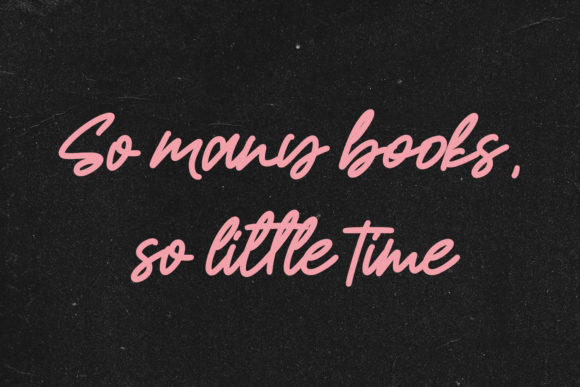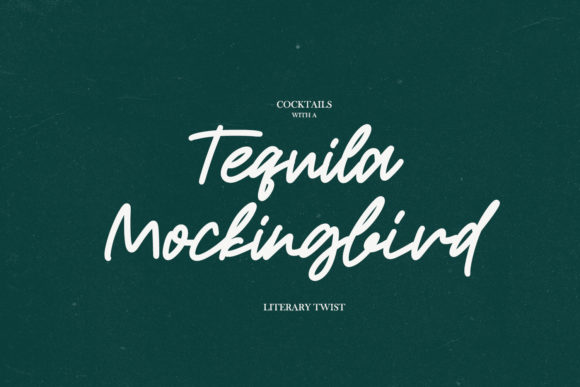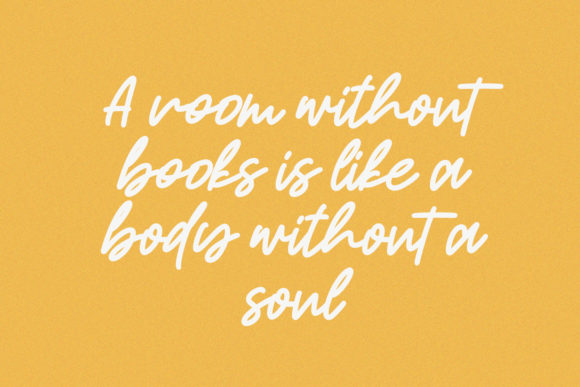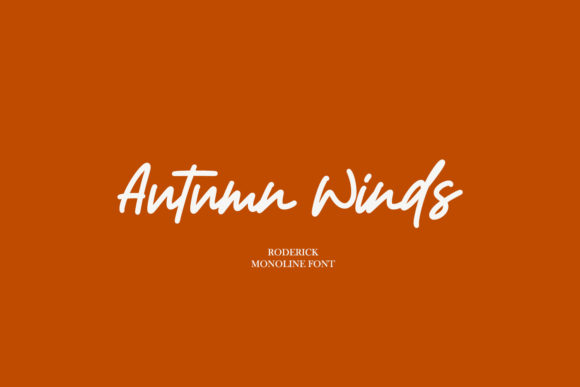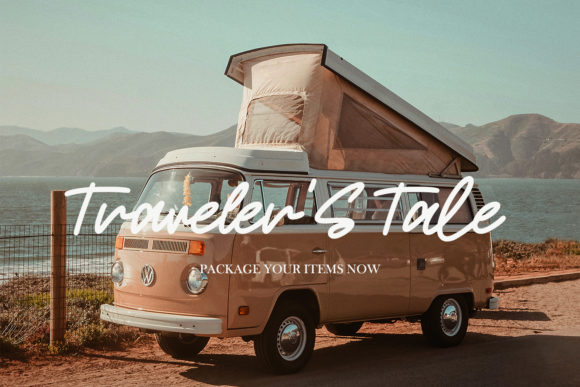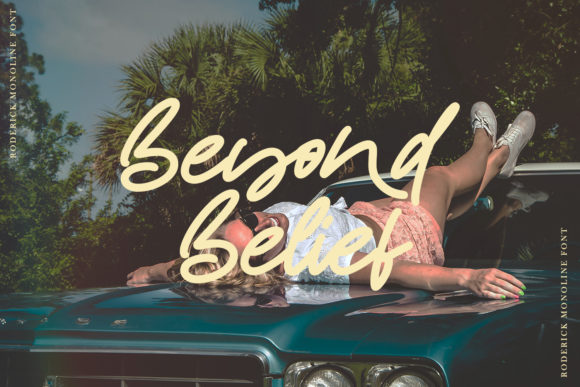
Introduction to Roderick Font
As a designer, have you ever had that moment when you’re working on a project and you can’t quite find the perfect font to bring your creative vision to life? The words are flowing, the colors are popping, but something’s missing – that special something that sets your project apart from the rest. For me, that moment came when I stumbled upon the enchanting Roderick Font.
With its unique blend of classic typography and modern flair, Roderick Font is the perfect design resource for any creative project. Whether you’re working on a logo, a brochure, or a website, this high-quality font is sure to turn your ideas into a true standout. And the best part? It’s available for free download, making it an accessible and valuable addition to any designer’s toolkit.
But what really sets Roderick Font apart is its versatility. With a transparent background, it’s easy to layer over images or use as a standalone element, giving you the flexibility to create a truly unique design. And with its elegant, handwritten style, it’s perfect for adding a touch of sophistication to any project. Whether you’re a seasoned designer or just starting out, Roderick Font is an essential tool that’s sure to elevate your designs to the next level.
Key Features of Roderick Font
- High-quality, professional design suitable for various creative projects, including business and personal use.
- Comes in a transparent background, allowing for seamless integration with any design resource.
- Unique, modern aesthetic with a clean and minimalist approach, ideal for projects requiring a sophisticated look.
- Legible in various font sizes and styles, ensuring readability across different mediums and devices.
- Perfect for designers, artists, and writers seeking a reliable, high-quality design resource for their creative projects.
Honest Review: Roderick Font
As a designer, I’m always on the lookout for unique and versatile fonts that can elevate my creative projects. The Roderick Font is one such find that has caught my attention. Let’s dive into what makes it tick!
- High-quality design: The Roderick Font boasts a clean and modern design that’s perfect for creating a professional look.
- Wide range of applications: It’s suitable for various design projects, from brochures and posters to digital interfaces and signage.
- Transparent background support: Unfortunately, this font doesn’t support transparent backgrounds, which can be a limitation for designers working with complex designs.
- Limited font sizes: Some designers might find that the Roderick Font is better suited for smaller font sizes, as larger font sizes can make it look pixelated.
Overall, I’m impressed with the Roderick Font’s potential to elevate my design projects. While it has some limitations, its unique design and versatility make it a valuable addition to any design resource collection.
Use Roderick Font on a transparent background to create a unique and eye-catching design. Experiment with different font sizes and styles to add depth and interest to your project. You can also use Roderick Font in combination with other design resources, such as images and graphics, to create a cohesive and high quality design.